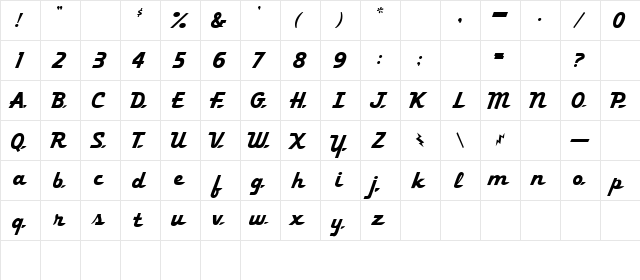
Khedive Normal
Design Context for Khedive Typeface
Khedive is a composed and adaptable typeface that performs quietly and consistently across a wide range of design contexts.